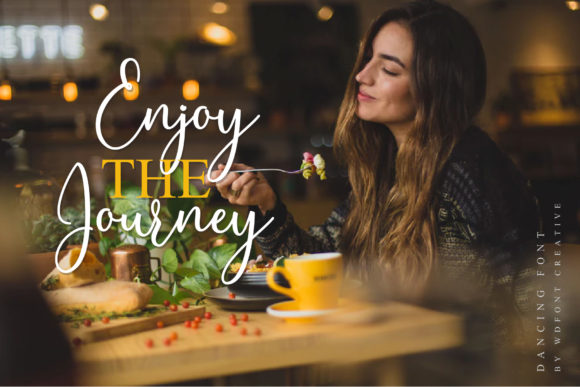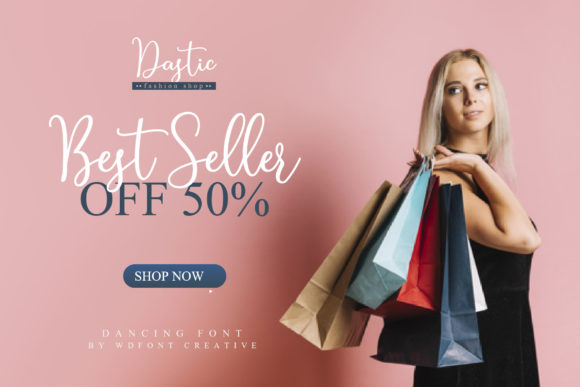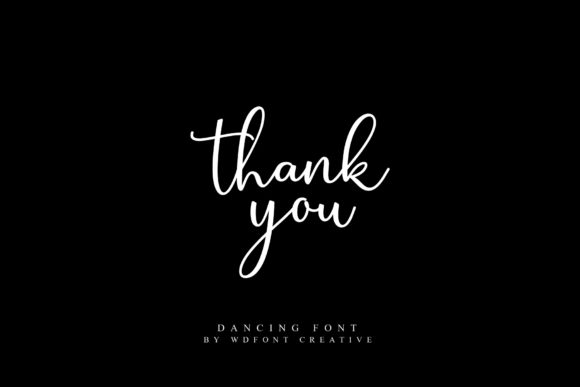
Dancing Font: Elevate Your Creative Projects with a Unique Handwritten Style
Are you tired of using the same old fonts in your creative projects? Do you want to add a touch of personality and whimsy to your designs? Look no further than the Dancing Font, a unique handwritten font that will turn any creative idea into a standout. In this article, we’ll explore the features and benefits of the Dancing Font, and how it can elevate your designs and take your creativity to the next level.
What is Dancing Font?
Dancing Font is a one-of-a-kind handwritten font that is designed to add a touch of elegance and playfulness to your creative projects. With its flowing lines and cursive style, this font is perfect for designers, crafters, and artists who want to add a personal touch to their work. Whether you’re creating a logo, a poster, or a social media graphic, the Dancing Font is sure to make your design stand out from the crowd.
Features of Dancing Font
So, what makes the Dancing Font so special? Here are just a few of its key features:
- Unique Handwritten Style: The Dancing Font has a distinctive handwritten style that is both elegant and playful. Its flowing lines and cursive letters make it perfect for adding a touch of personality to your designs.
- Highly Versatile: The Dancing Font is highly versatile and can be used in a wide range of creative projects, from logos and posters to social media graphics and invitations.
- Easy to Read: Despite its playful style, the Dancing Font is highly legible and easy to read, making it perfect for use in body text as well as headlines.
Benefits of Using Dancing Font
So, why should you choose the Dancing Font for your creative projects? Here are just a few of the benefits of using this unique font:
- Adds a Touch of Personality: The Dancing Font adds a touch of personality and whimsy to your designs, making them stand out from the crowd.
- Increases Engagement: The playful style of the Dancing Font can help to increase engagement and interaction with your audience, making it perfect for use in social media graphics and other online content.
- Perfect for Branding: The Dancing Font is perfect for use in branding and logo design, as it adds a touch of elegance and sophistication to your brand identity.
How to Use Dancing Font in Your Designs
Using the Dancing Font in your designs is easy. Here are just a few tips to get you started:
- Use it in Headlines: The Dancing Font is perfect for use in headlines and titles, where its playful style can really make an impact.
- Add it to Your Logo: The Dancing Font is a great choice for logo design, as it adds a touch of elegance and sophistication to your brand identity.
- Use it in Social Media Graphics: The Dancing Font is perfect for use in social media graphics, where its playful style can help to increase engagement and interaction with your audience.
- Experiment with Different Colors and Textures: The Dancing Font looks great in a range of colors and textures, so don’t be afraid to experiment and find the perfect combination for your design.
| Author | WDfont Creative |
In conclusion, the Dancing Font is a unique and versatile handwritten font that is perfect for designers, crafters, and artists who want to add a touch of personality and whimsy to their creative projects. With its flowing lines and cursive style, this font is sure to make your designs stand out from the crowd. Whether you’re creating a logo, a poster, or a social media graphic, the Dancing Font is a great choice. So why not give it a try and see the difference it can make in your designs?